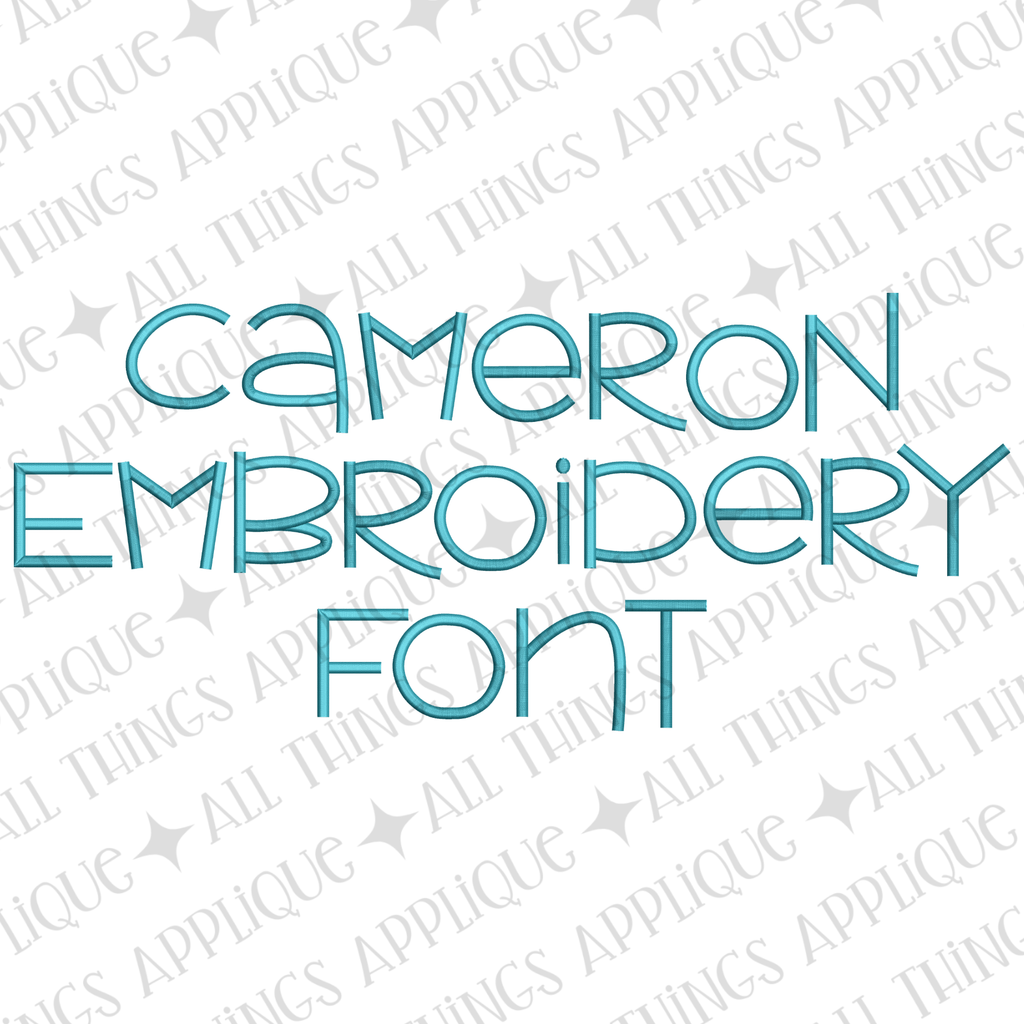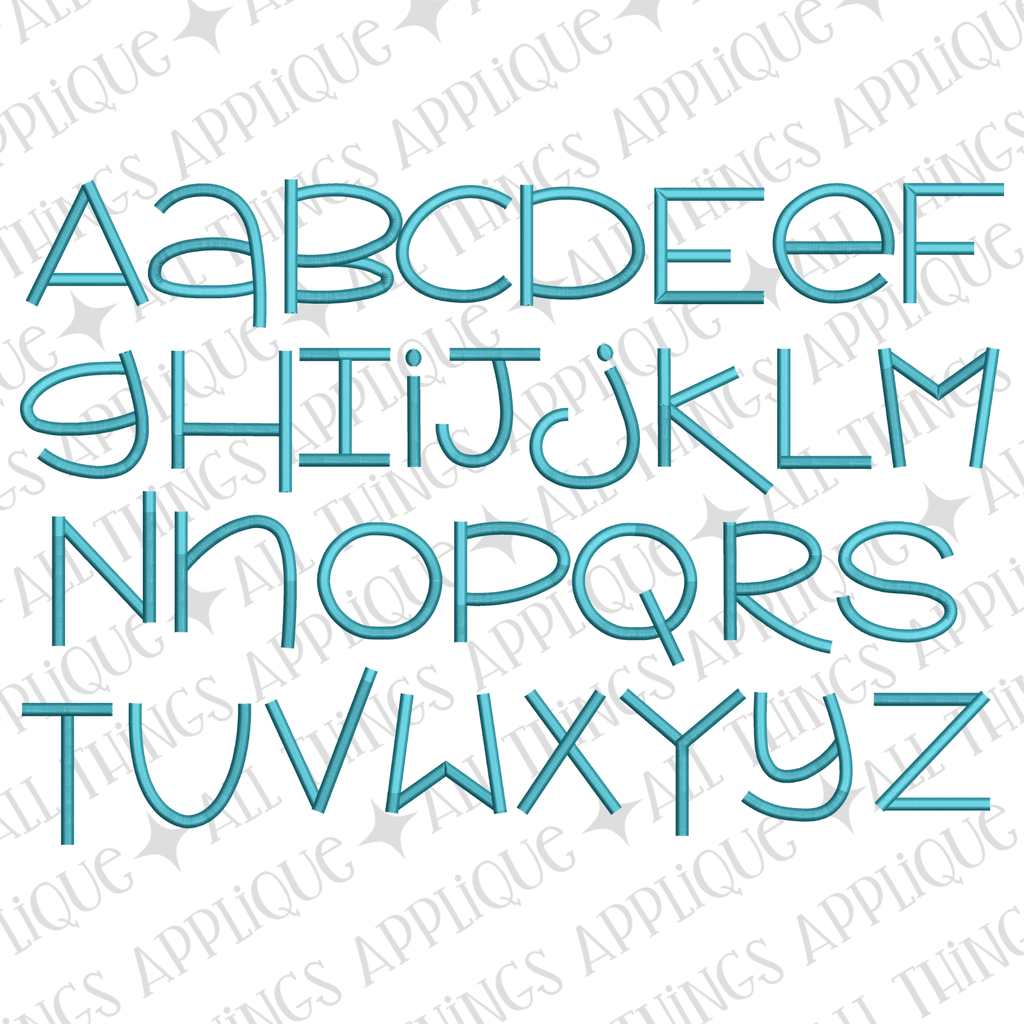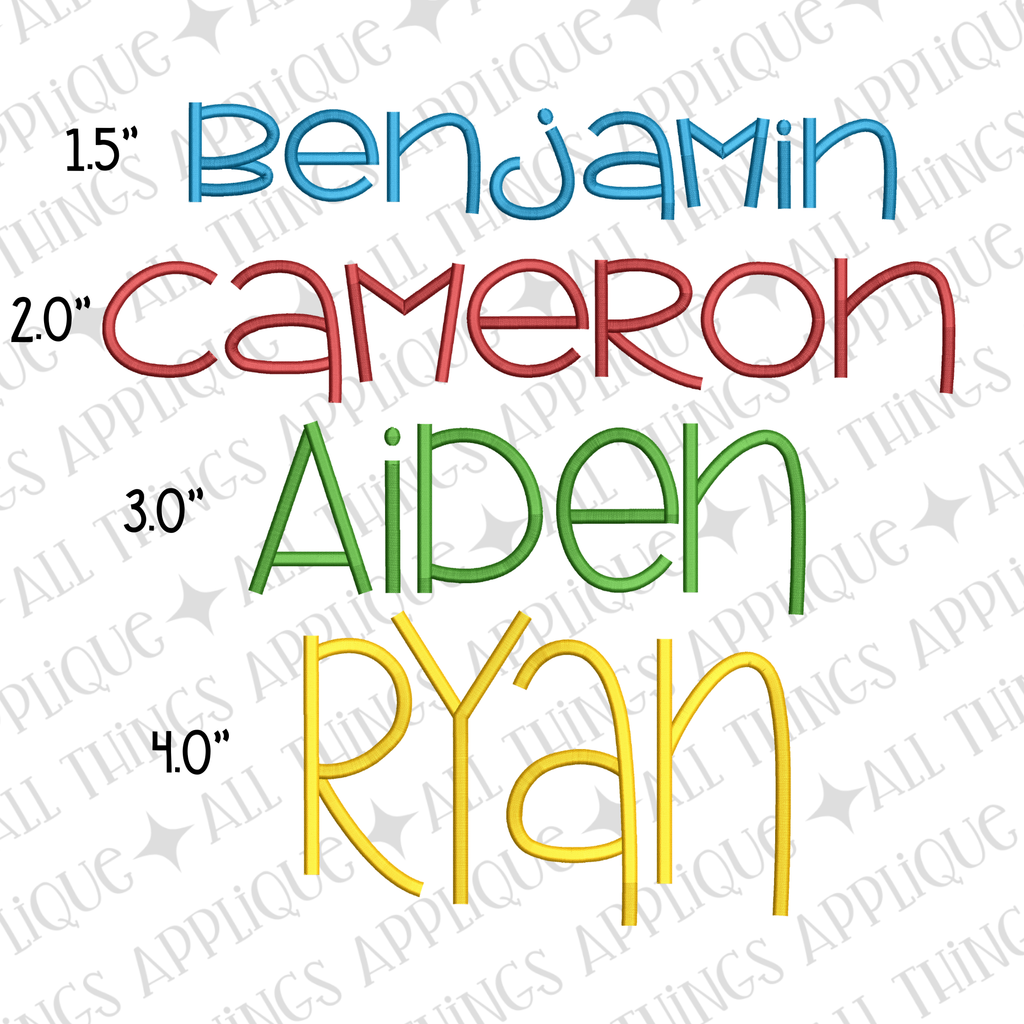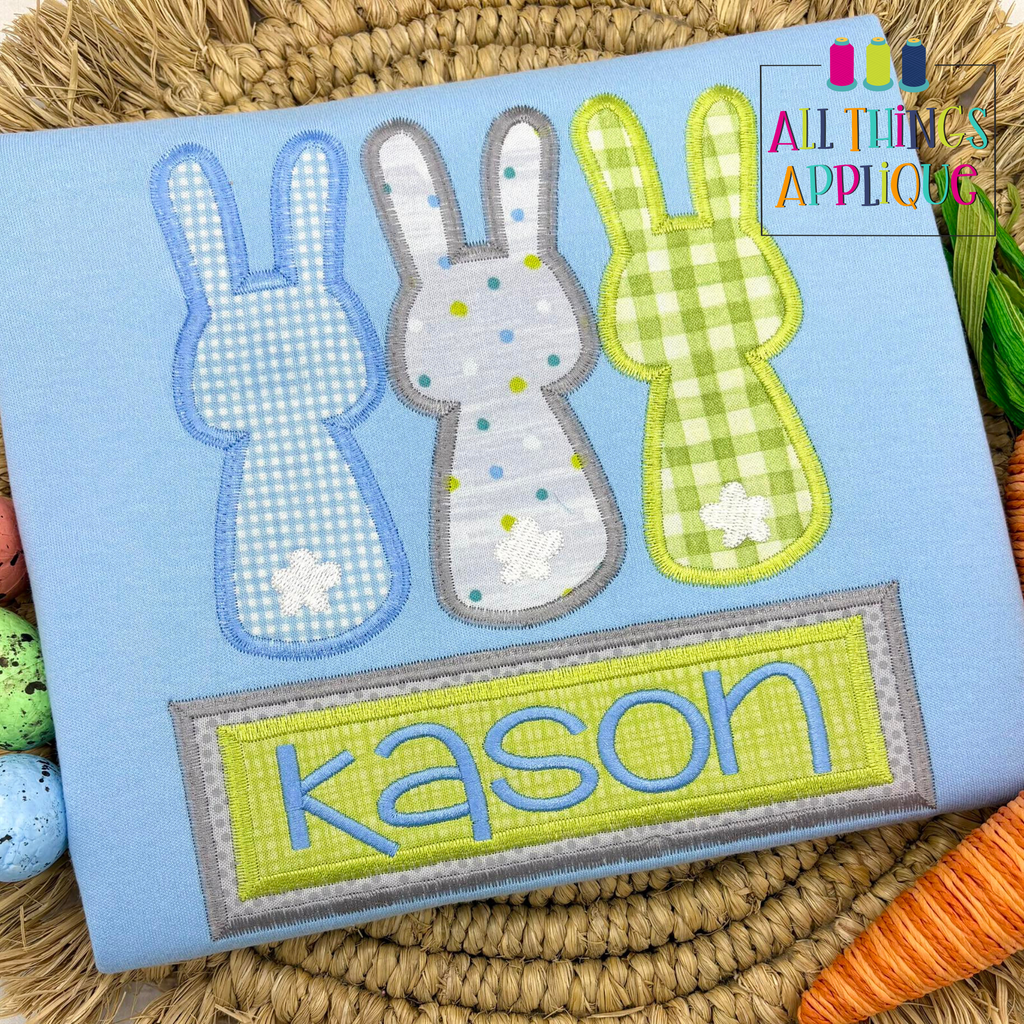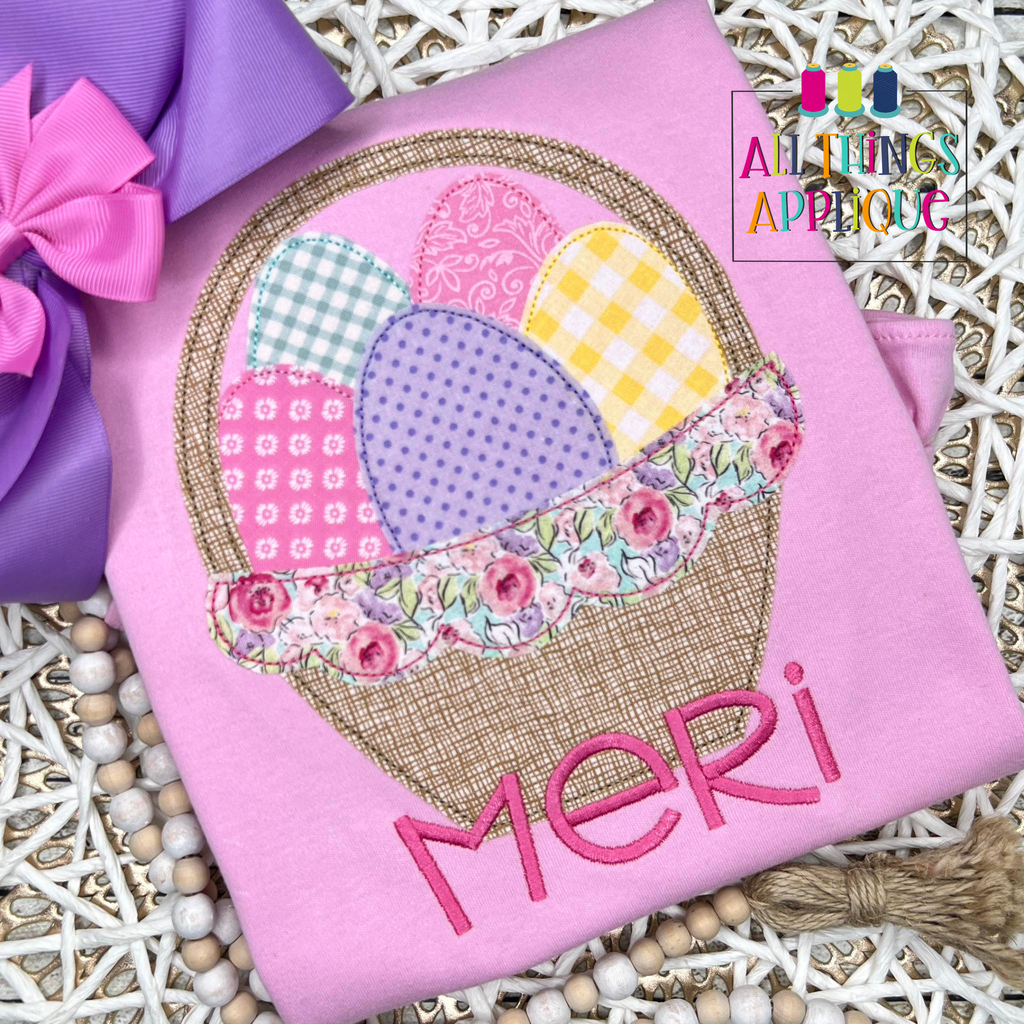
About the Cameron Embroidery Font
Bring personality to your projects with Cameron, a clean and simple embroidery font that's perfect for adding a playful touch to any design. Available in five versatile sizes, this font works beautifully on everything from monograms to beach towels to personalized shirts and more. Its straightforward letterforms make it easy to stitch while maintaining charming character. Ideal for beginners and experienced embroiderers alike, Cameron delivers professional results with effortless style.